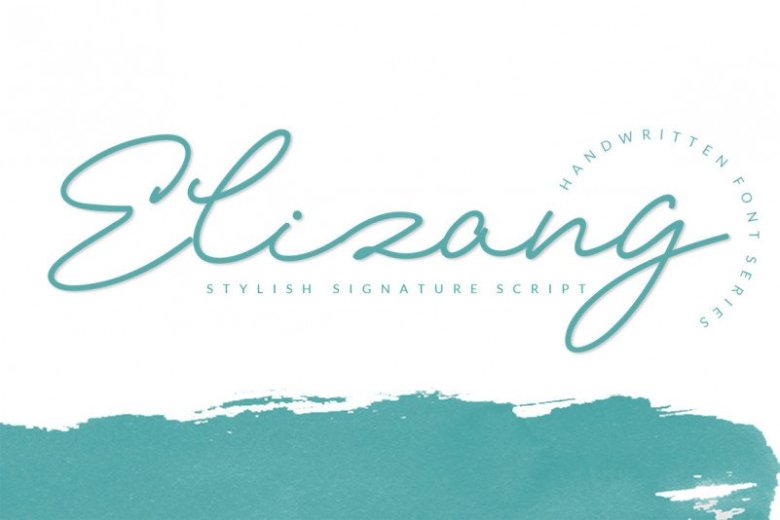
Elizany Signature Font
Hi Font Lover! This is a very stylish font with characteristics that have a distinctive beautiful hand stroke, which are perfect for your design needs and especially for the benefits of design branding. Introducing Elizany Font. Style with the luxury of a unique and beautiful signature, easy to use for the needs of the project. It’s a beautiful for wedding card design, logotype, website header, fashion design and any more.